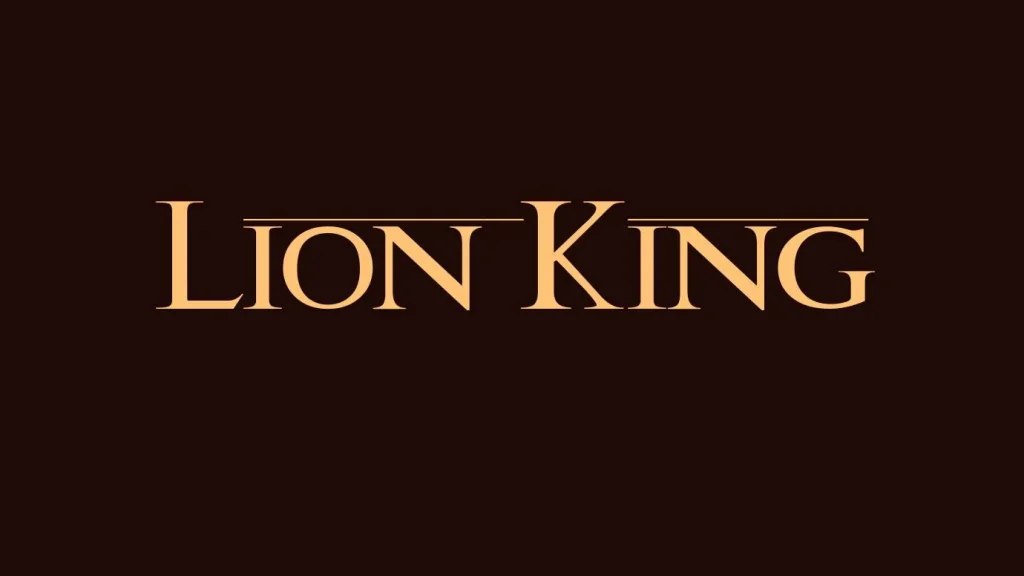
Lion King Font is an ideal style for every project and contains various capital and lower sets. You can utilize the style’s distinct characters in these font stylings to create a variety of projects.
This font is a fantastic choice if you're searching for a multipurpose style, it is a simple-to-read font that will make your text stand out. Artismelb and Melanie Blanco designed this text design.
NameLion King Font
DesignerArtismelb and Melanie Blanco
StyleSerif